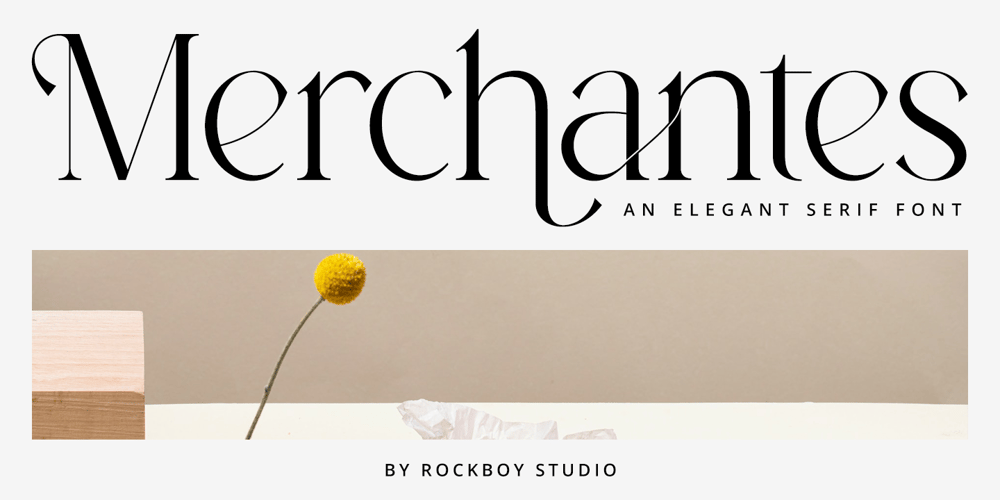
Merchantes Font Family was designed by Hayinah and published by Rockboys Studio. Merchantes contains 1 styles and family package options. Merchantes is an elegant and modern sans serif font. It can easily match your various projects, so add it to your creative ideas and watch how it makes them stand out.